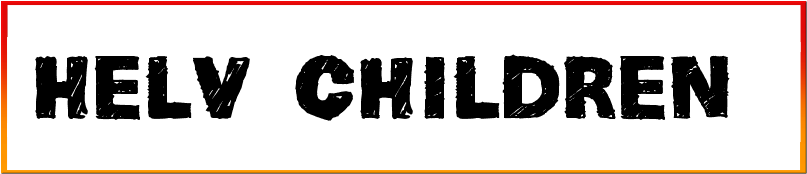
Helv Children Font
Helv Children
Helv Children is a fancy font designed by Matthias Guggisberg (Bern). It's a decorative display font with plenty of personality, made to grab attention. It's a free download, and you can try it with your own text in the preview above first.
- Designer: Matthias Guggisberg (Bern)
- Glyphs: 84
What You Can Type With Helv Children
You get every letter from A to Z in both cases and all the numbers from 0 to 9, which means Helv Children can handle full sentences, dates and prices. Common punctuation such as !, ? and @ is included as well. It doesn't include accented letters such as é or ñ, which makes it an English-only font.
Where Helv Children Works Best
Think of Helv Children for posters, logos and eye-catching headlines. Use it for one standout word or headline and let simpler fonts handle the rest.
Does Helv Children support accented letters?
No. Helv Children has no accented letters such as é, ñ or ü, so it's best for English text.